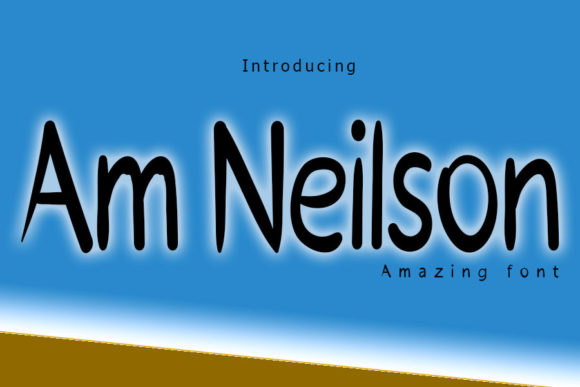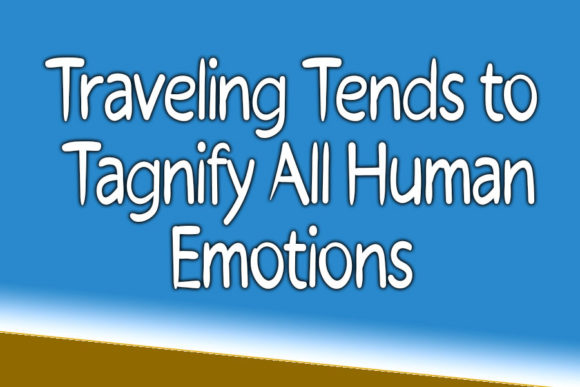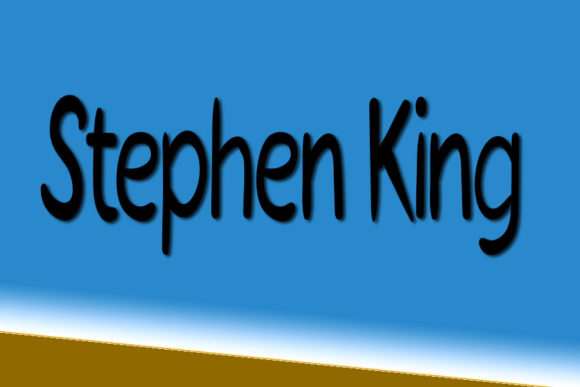
Am Neilson Font
About Am Neilson Font
Am Neilson is a cute and simple handwritten font. Its natural and unique style makes it incredibly fitting to a large pool of designs. The only limit is your imagination!